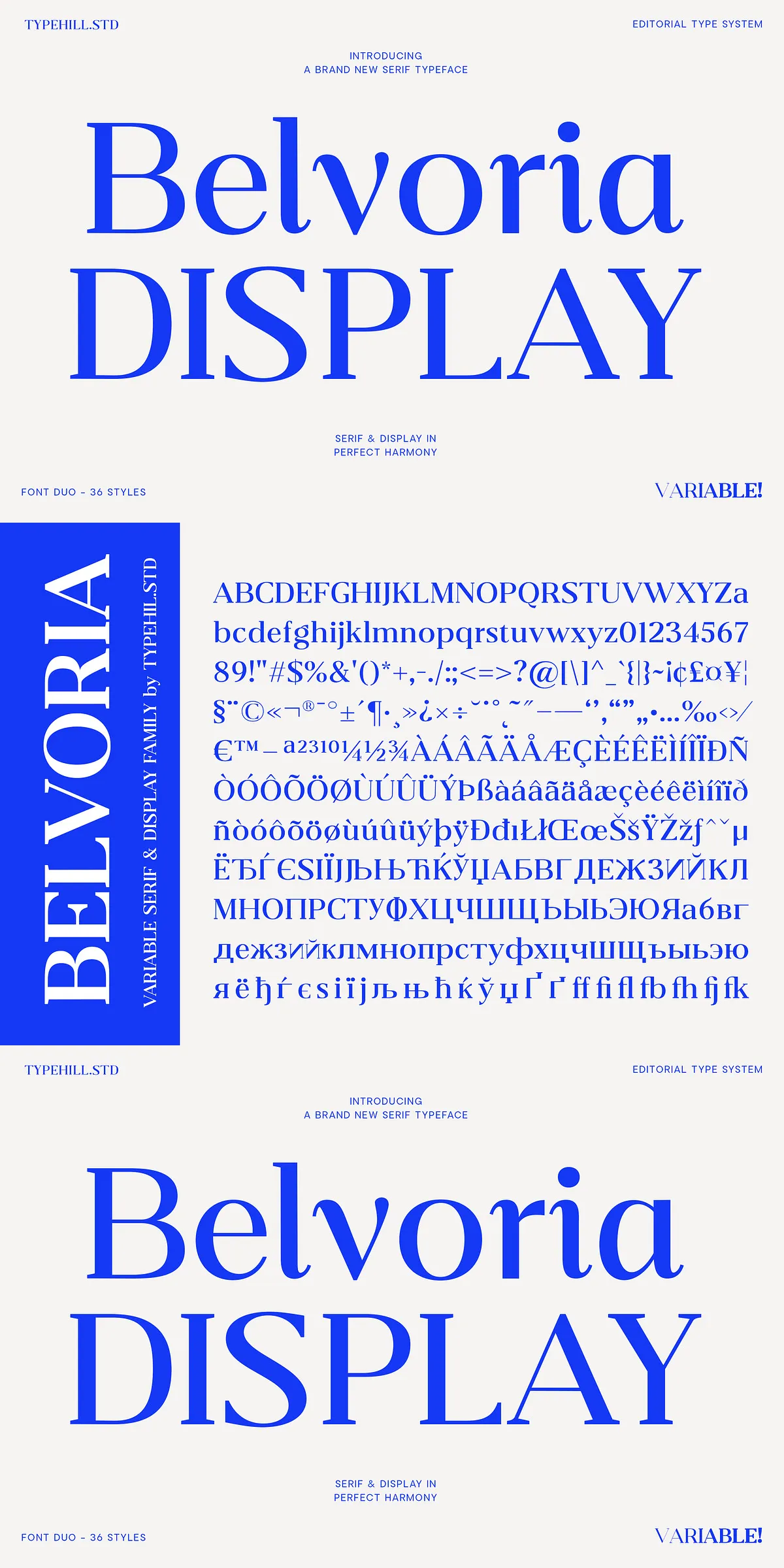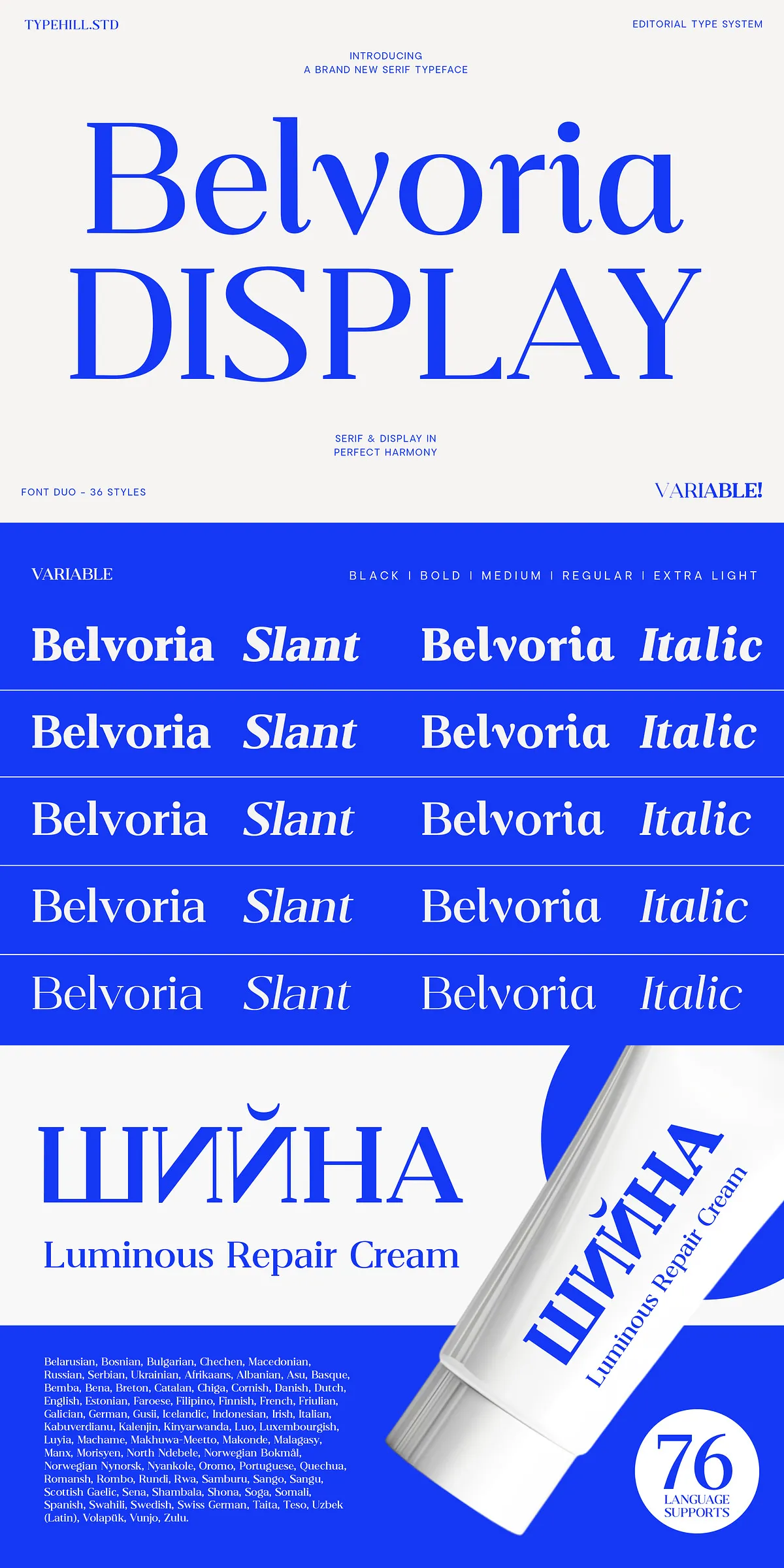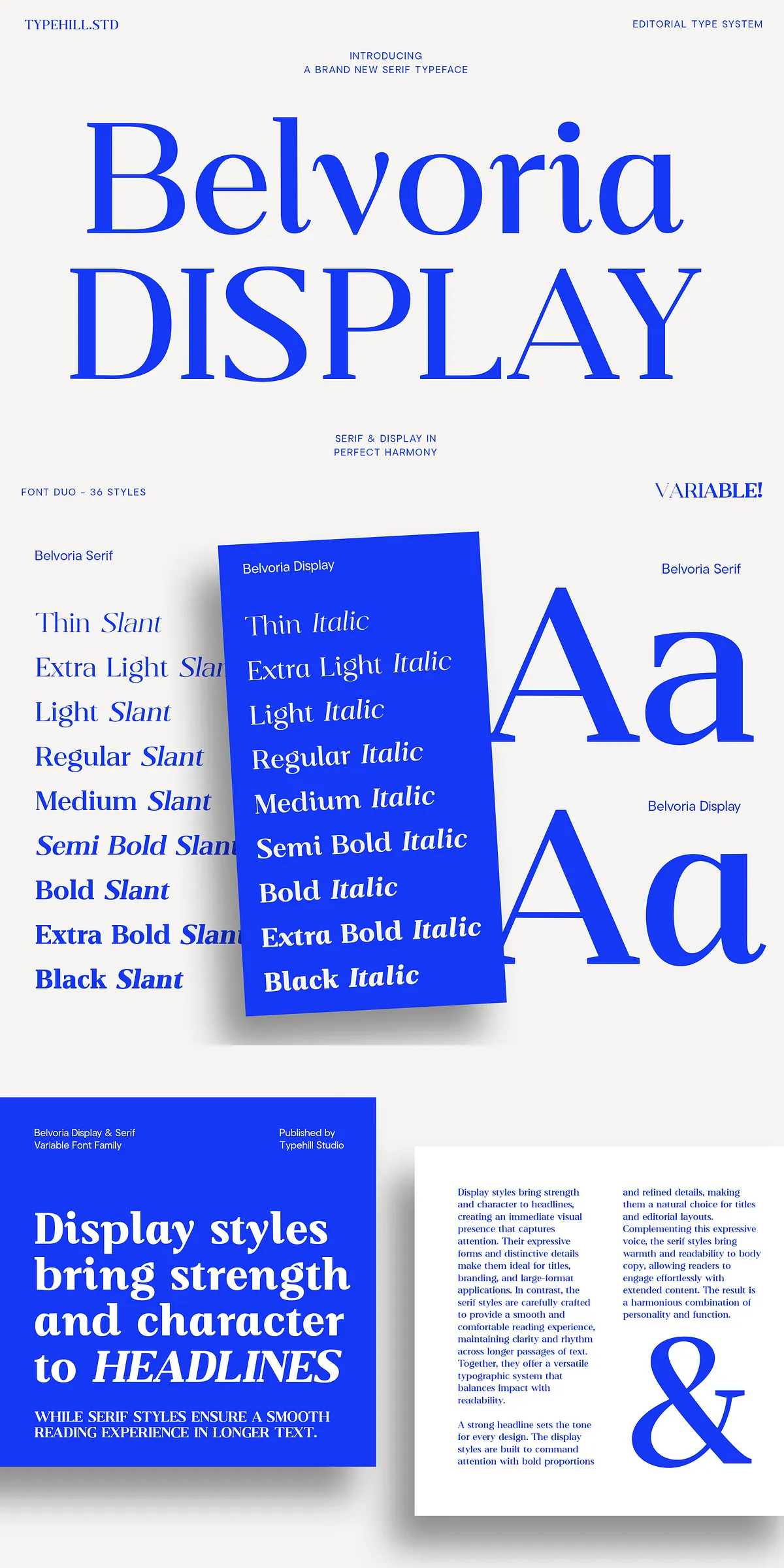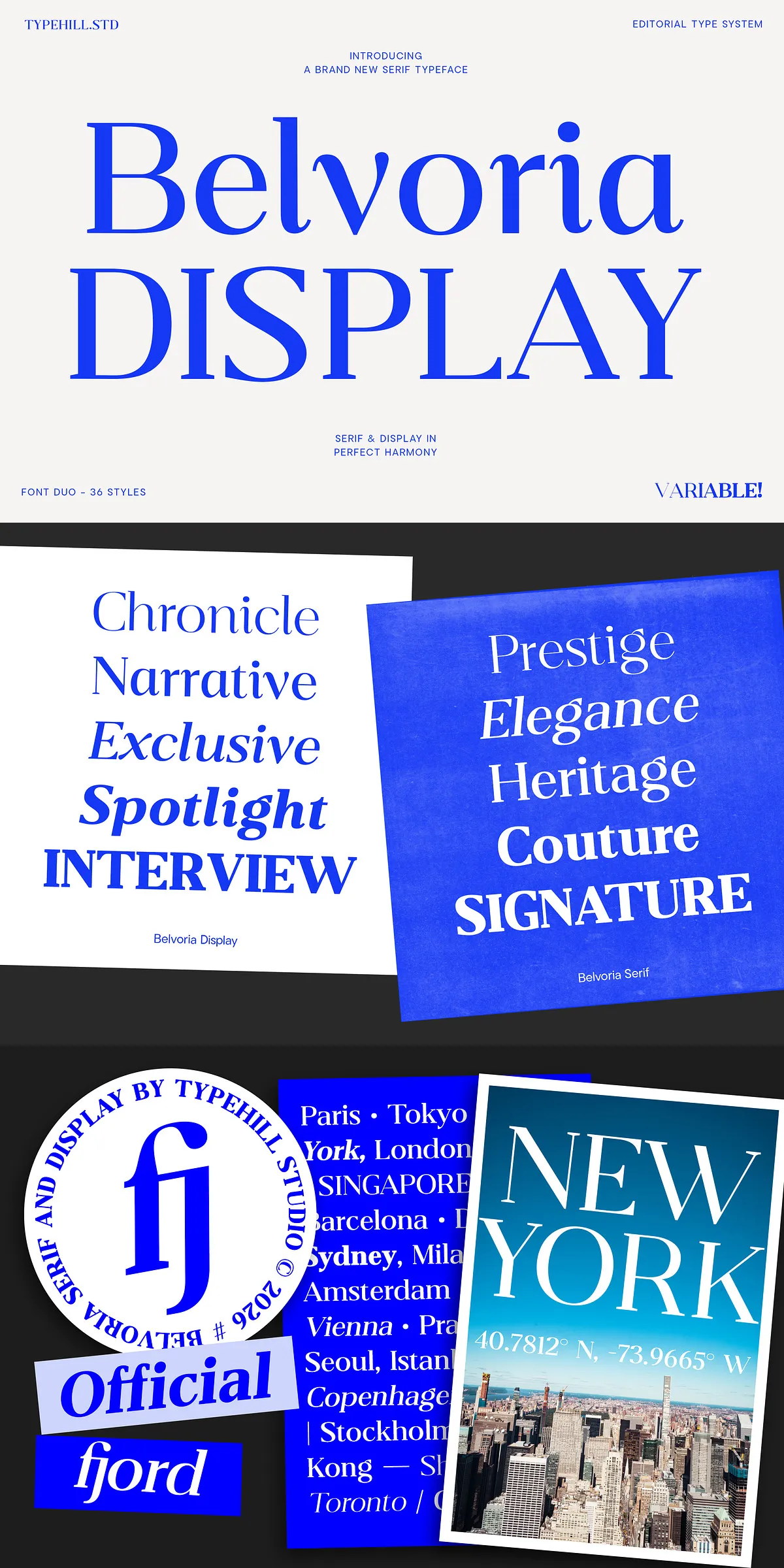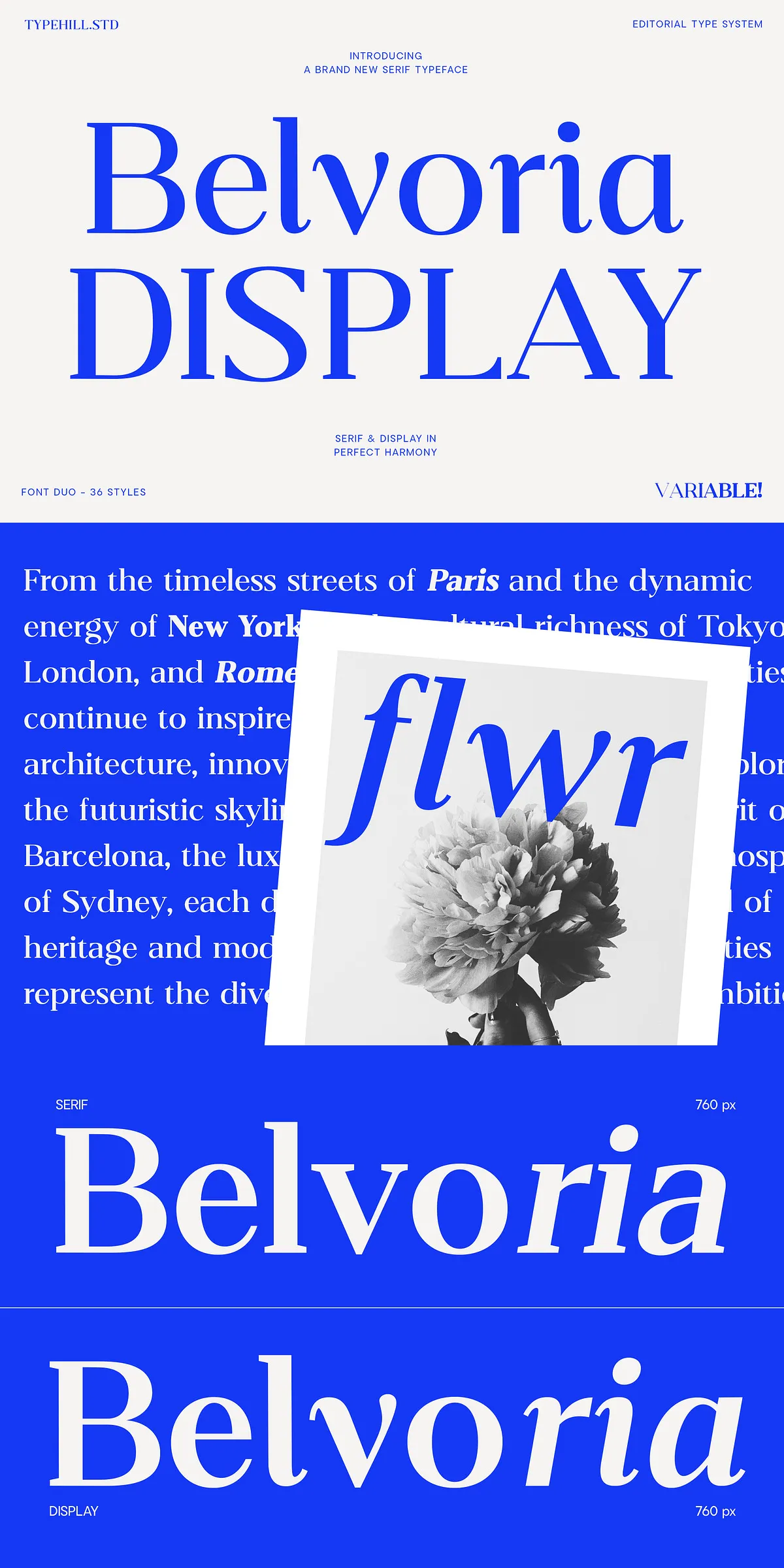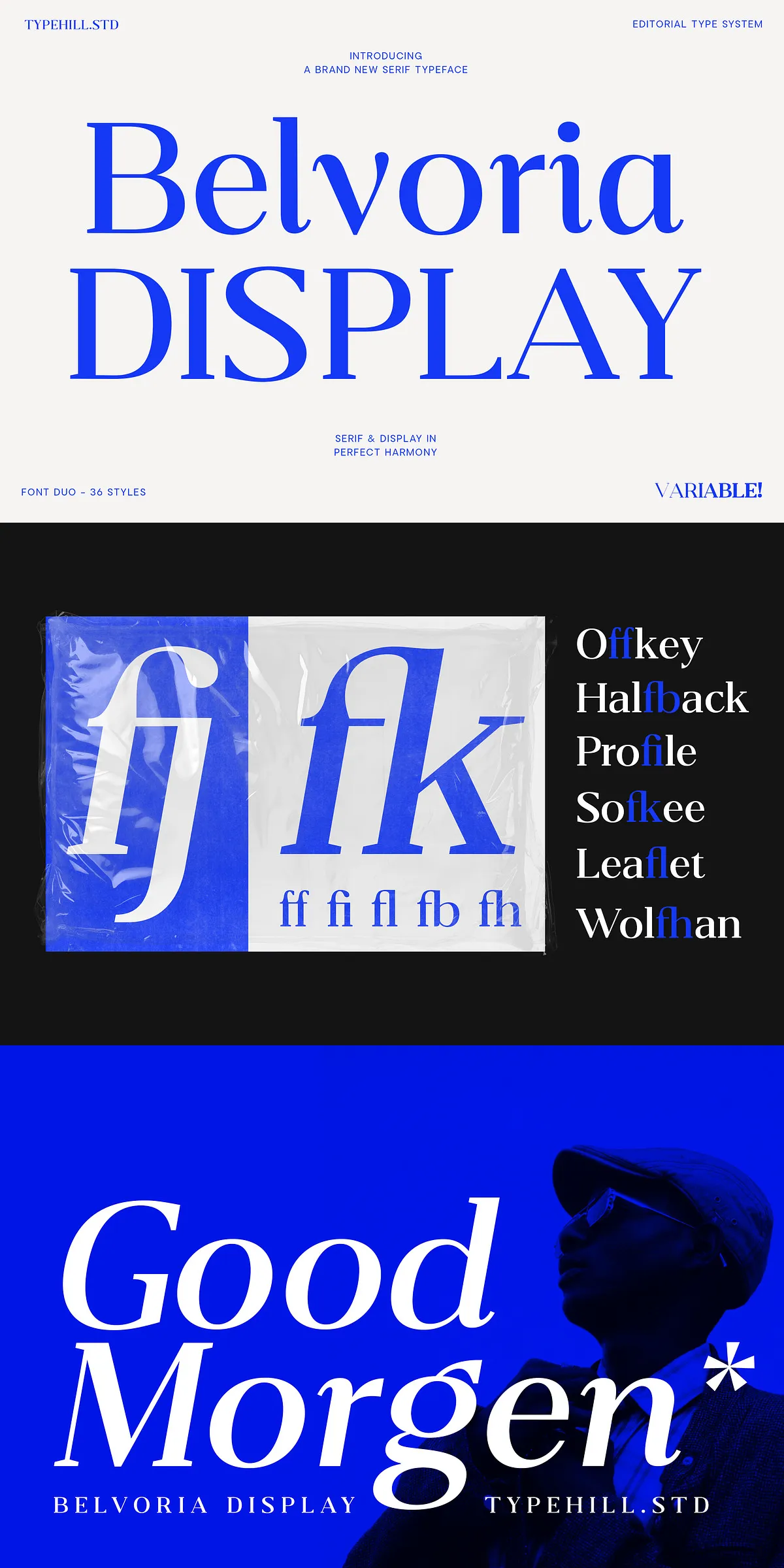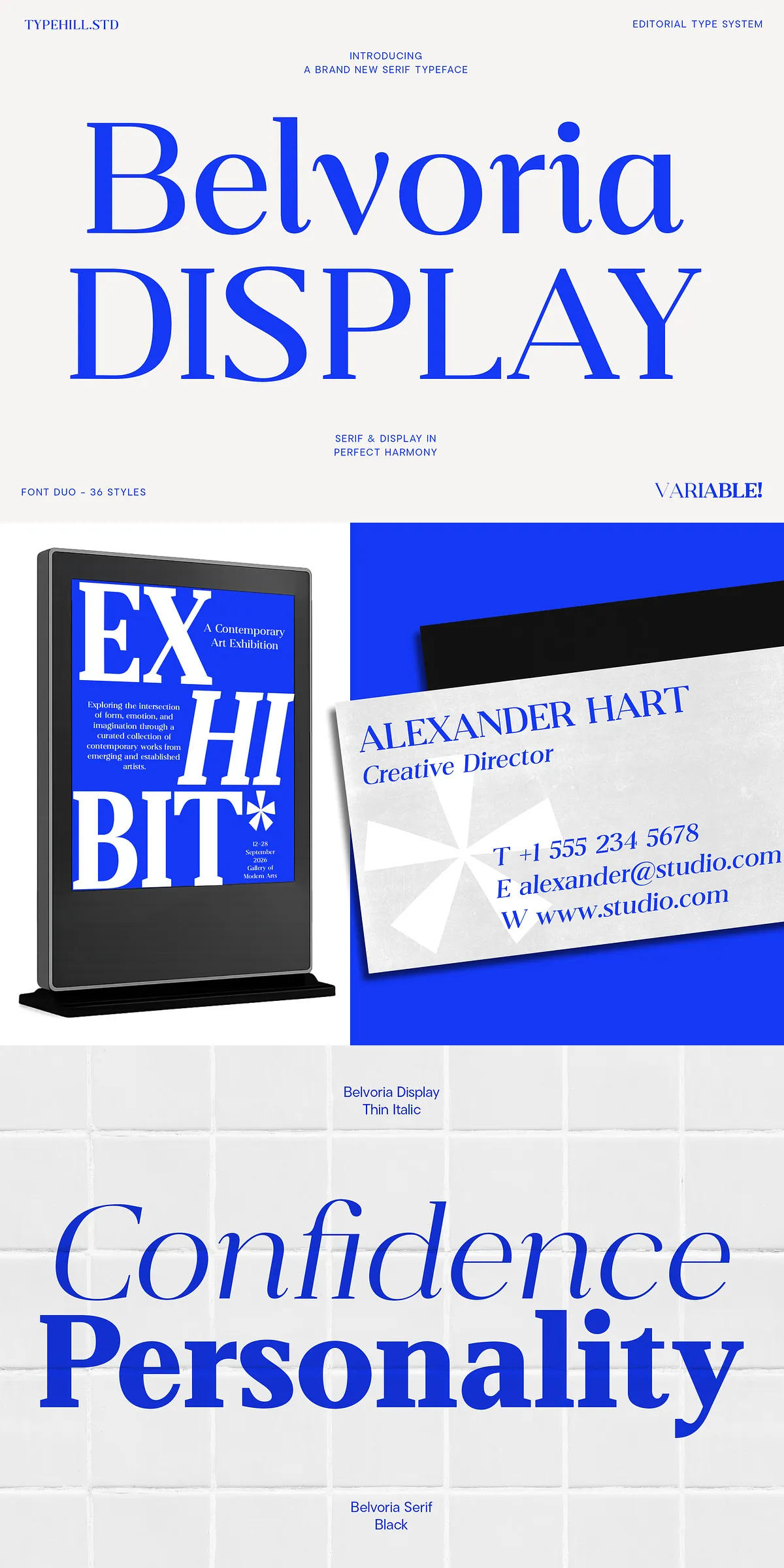
Belvoria delivers an active and refined typographic voice that adapts to modern design demands. The typeface blends classic serif forms with contemporary proportions, giving designers immediate control over tone and weight. Built as a variable family, Belvoria enables precise transitions from delicate body copy to commanding display headlines. You can craft subtle editorial textures or bold identity marks without switching families—Belvoria streamlines creative workflows and keeps visual systems consistent across media.
Powerful Variable System And Practical Design Axes
Belvoria ships with a robust variable engine that includes three expressive axes, enabling nuanced control over style and presence. Use the weight axis to move from light, elegant text to dense, authoritative headlines. Adjust the contrast axis to emphasize refined hairlines or to create stronger, high-impact letterforms. The optical or width axis lets you tune proportions for tight logotypes or relaxed body text. These axes work together, letting you tailor type to production needs while preserving rhythm and legibility.
Distinctive Serif Details And Expressive Italic Designs
The serif detailing in Belvoria balances tradition and clarity: tapered strokes, refined terminals, and purposeful contrast produce a polished editorial texture. Designers will appreciate the slanted and true italic options that introduce motion and personality. Use italics for elegant emphasis, pull quotes, and expressive taglines. Every glyph contributes to a cohesive voice that reads confidently at small sizes and commands attention at large scales.
Extensive Language Support And Global Coverage
Belvoria supports an extensive range of Latin-based languages and includes diacritics required for international projects. This broad coverage makes Belvoria reliable for global branding, multilingual editorial work, and international packaging. Designers can deploy the family across markets without compromising typographic quality or consistency.
Recommended Uses And Practical Applications For Designers
Belvoria excels in contexts that demand refined visual identity and editorial authority. Use it for luxury branding, fashion and lifestyle magazines, premium packaging, logo design, advertising campaigns, and high-end websites. The variable features allow you to create responsive typography systems—adjust type behavior for screens, print run lengths, or scalable identity marks. Belvoria gives teams the flexibility to maintain a unified voice across touchpoints while adapting to specific communicative goals.
Why Choose Belvoria For Premium Visual Identities
Choose Belvoria when you need a single serif family that combines elegance, technical depth, and design flexibility. The variable architecture reduces asset overhead while expanding creative range, and the meticulous detailing sustains credibility in premium contexts. Belvoria empowers designers to deliver memorable, polished typography—whether for a fashion label, magazine cover, or a luxury packaging system.